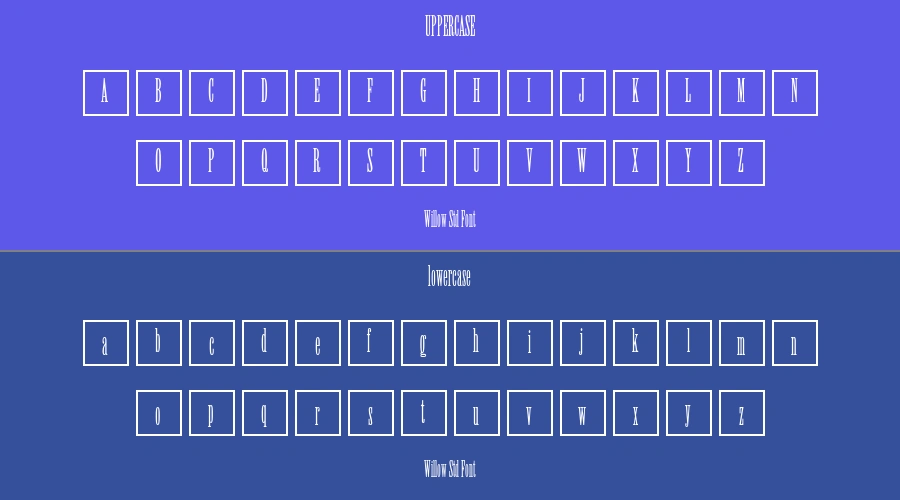
About Willow Std Font
When typographic excellence matters most, Willow Std Font delivers through its thoughtful blend of elegant curves and visual appeal. Specially crafted for brand identities, it offers the endurance and refinement required for sophisticated design work. Every detail serves a purpose.
The character set showcases thoughtful details like expressive curves alongside functional mid-word alternates. This proves especially valuable in academic theses, where emotional response directly influences results. Particular attention was paid to spine curvature and technical tradition during development.